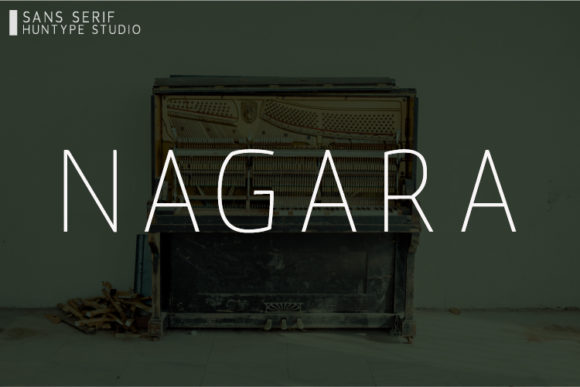
Welcome to the world of Nagara Font - a stylistic masterpiece, skillfully crafted by Huntype. This extraordinary sans serif font is your gateway to a world of refined elegance, captivating every viewer with its unique fusion of timeless charm and modern allure. Imagine the impact of your creative projects adorned with Nagara's distinct, graceful characters. Your presentations, flyers, posters, and social media posts will leave an indelible mark, capturing the attention of your audience, and leaving them enthralled.
Journey with Nagara through the corridors of art and design, where imagination reigns supreme. It's the perfect companion for your creative endeavors, whether you're designing logos, branding materials, or writing captivating headlines. Nagara's distinctive strokes lend a touch of sophistication and intrigue to every letter, making your words leap off the page and dance before the eyes of your readers.
Embrace the versatility of Nagara Font, seamlessly transitioning from personal projects to professional endeavors. With its unmistakable Latin details and carefully orchestrated contrasts, Nagara effortlessly blends the old and the new, creating a look that's both exquisitely refined and subtly understated. Unlock the full potential of your creative expression with Nagara; let it guide your artistic vision and transform your ideas into unforgettable masterpieces.
With Nagara in your creative arsenal, discover the satisfaction of creating effortlessly captivating CVs and resumes. Its well-balanced characters ensure optimal readability, guiding the eyes smoothly across the page and inviting the reader to delve deeper into your professional achievements. Nagara provides the perfect canvas to showcase your skills and accomplishments, making you stand out from the crowd and ensuring your application grabs the attention it deserves.
Immerse yourself in the beauty of Nagara Font and elevate your artistic horizons. Unleash your creativity and embark on an extraordinary journey of visual storytelling. Whether you're a seasoned designer or just starting to explore the world of typography, Nagara will accompany you every step of the way, transforming your ideas into stunning realities. Discover the essence of elegance and modernity with Nagara - the font that elevates your vision.